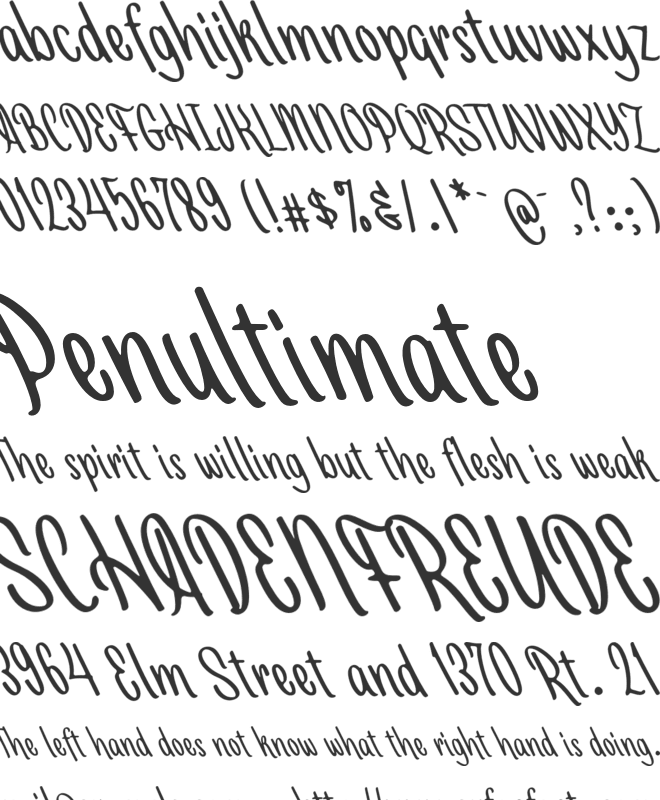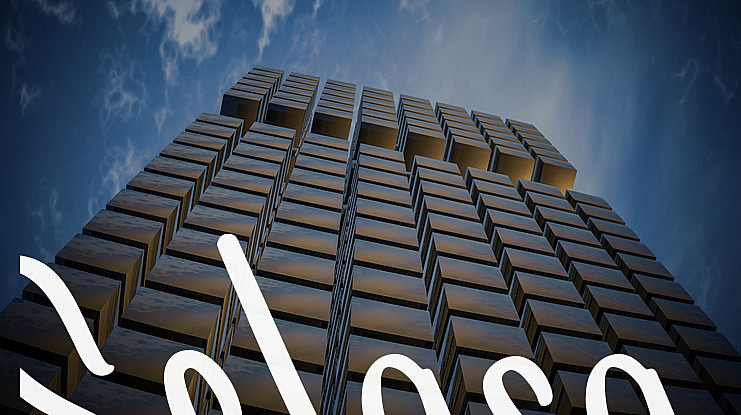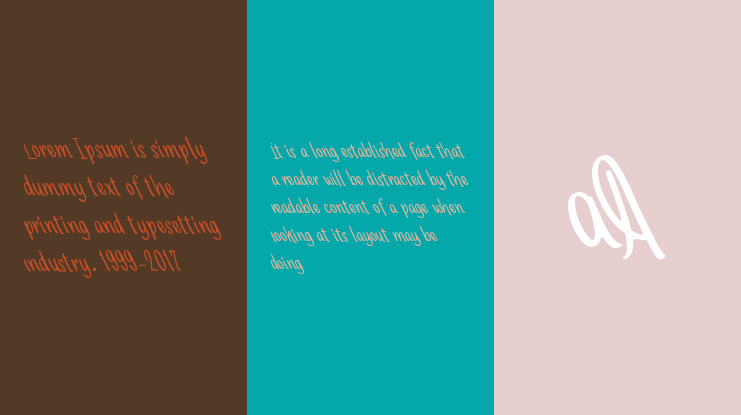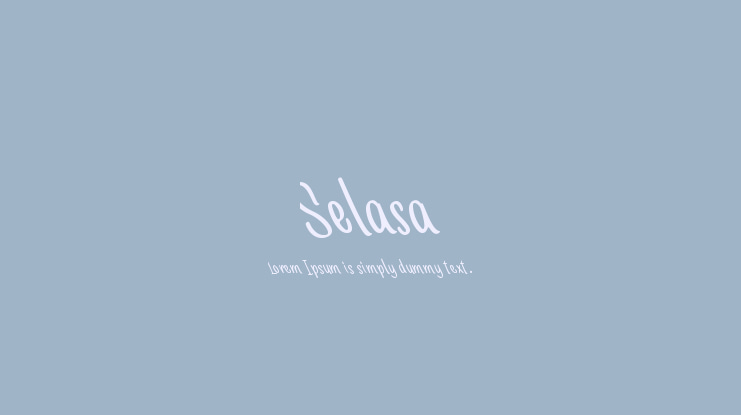
Selasa Font
Selasa font is an unusual handwritten font where the angle is tilted to the left. At first it might look weird but you need to see something out of the ordinary occasionally.
This font comes with several final form characters so that you can make typography more varied. Just activate the swash feature to add a swirl at the end of the word.